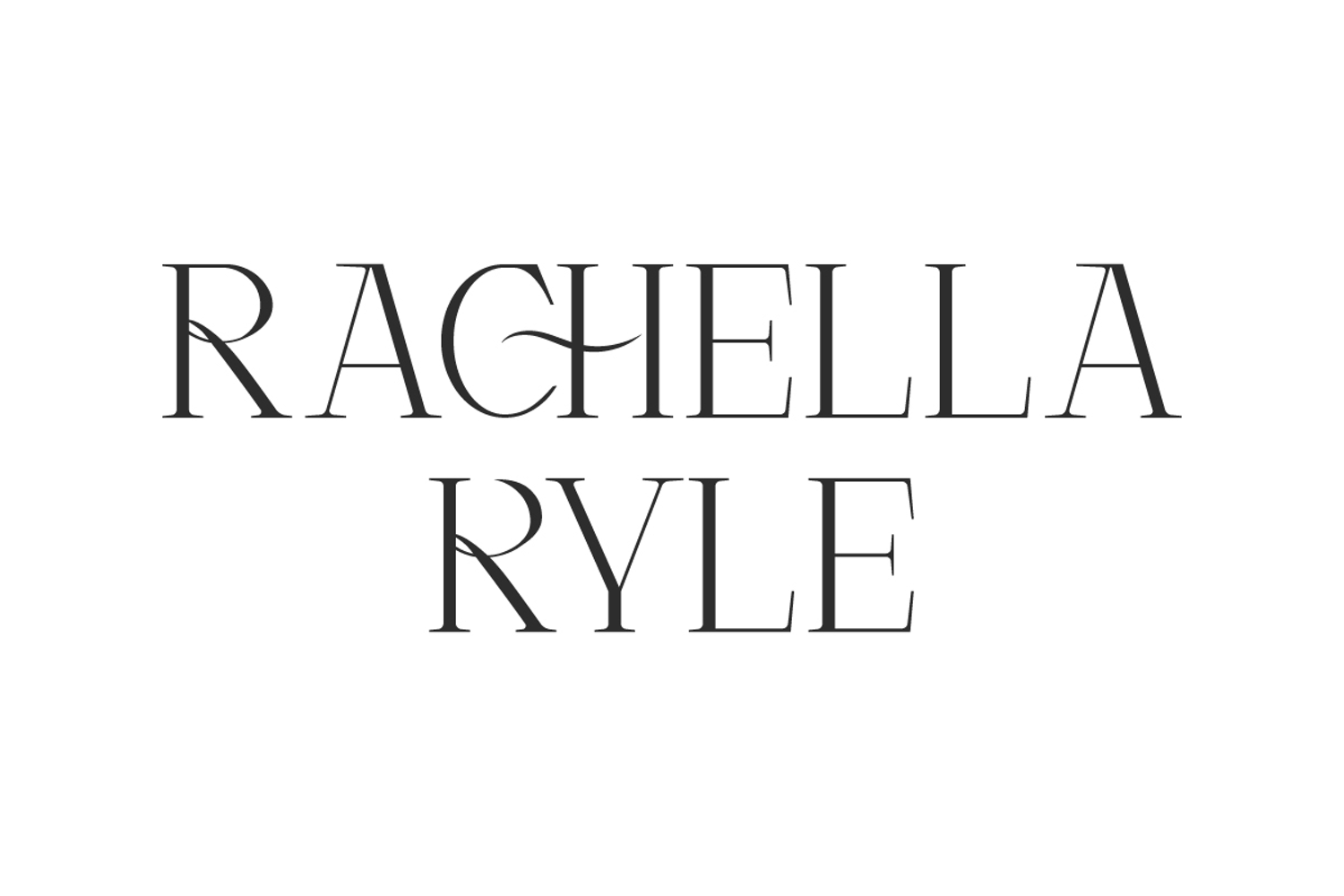
Rachella Kyle Font
Rachella Kyle Font is an elegant charming serif display font with modern letters bringing a trendy look to your designs. The unique and lightweight letterforms with special ligatures will make anything look perfect. This font is great for brochure, greeting card, headers, headline, invitation, label tag, logo, poster, quotes, screen printed, sign board, stationery, stickers, website, etc.
Rachella Kyle Font contains a complete set of basic Uppercase and Lowercase characters, Numbers, Symbols, Punctuation and Ligature. You can easily use this font and it is flexible for anything, such as cafeteria, florist, furniture, graphic design, handicrafts, spa salon and more, even for any project that requires a formal look or not. Come let its elegance make you happy and enhance your creativity!